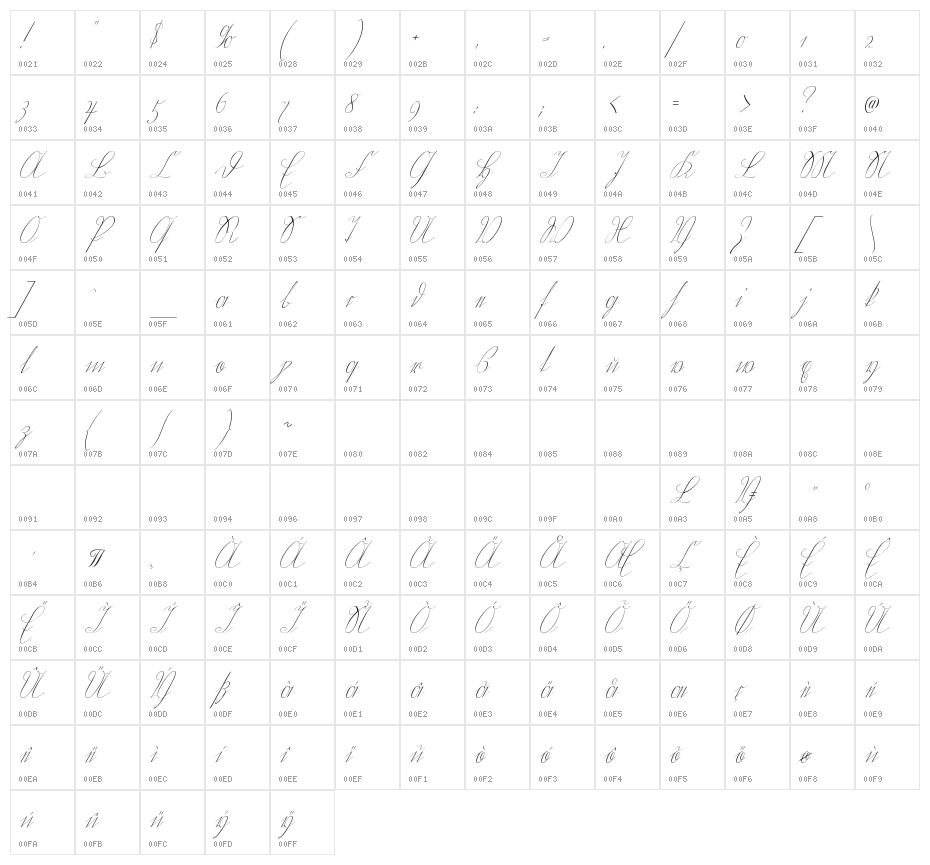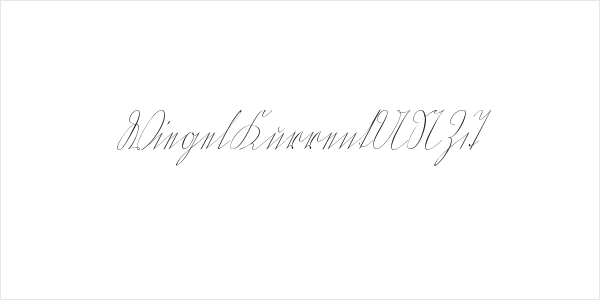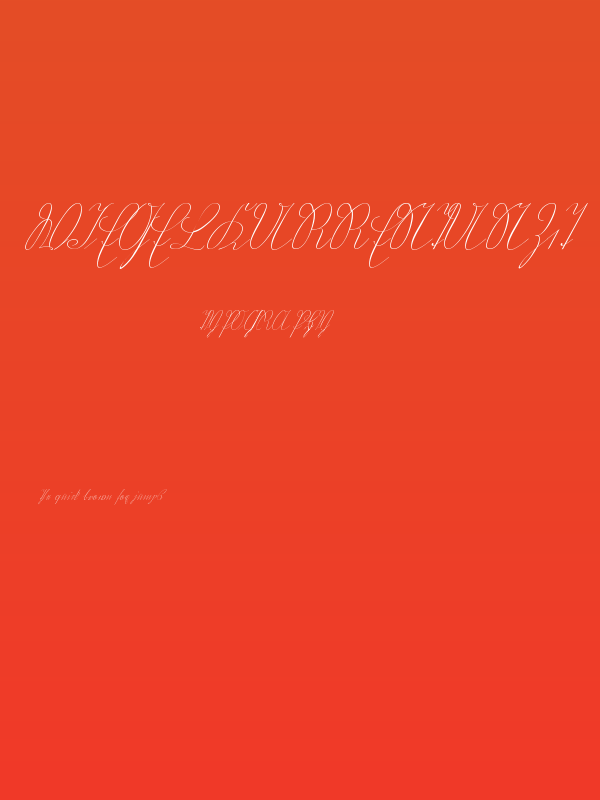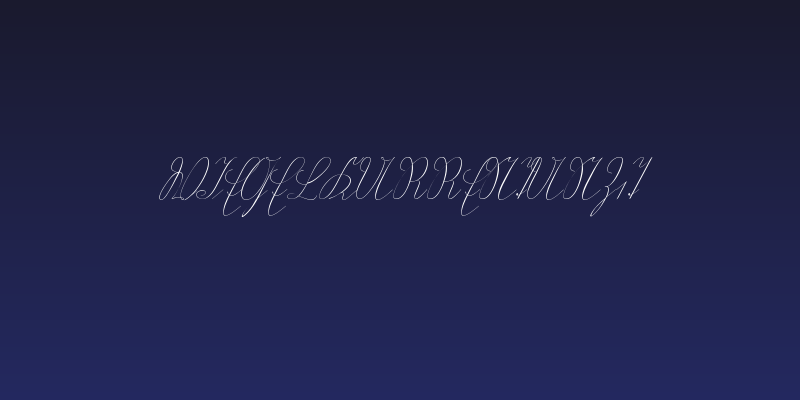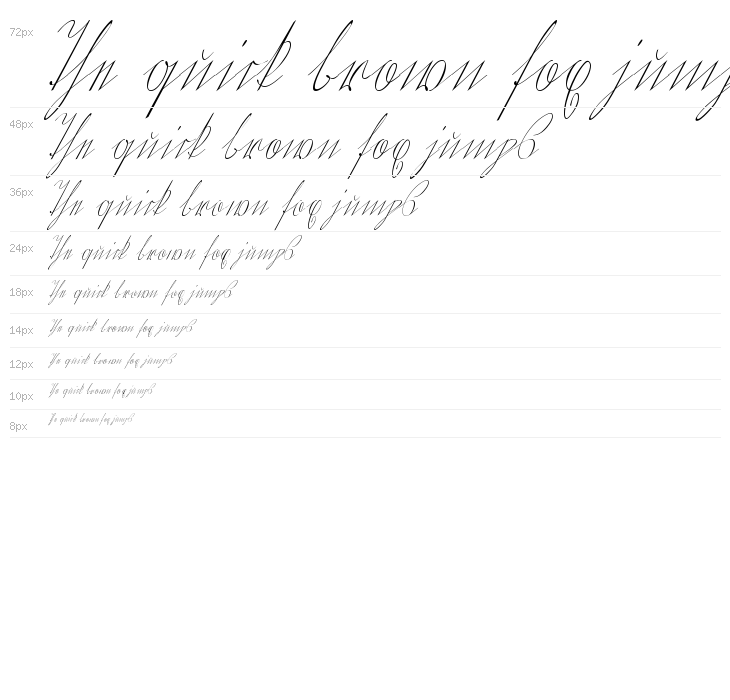
WiegelKurrentUNZ1T Font
WiegelKurrentUNZ1T Description
This font exhibits a classic and elegant script style, characterized by its flowing, cursive letterforms. The strokes are thin and delicate, with a high contrast between thick and thin lines, giving it a refined and sophisticated appearance. The uppercase letters are ornate, with intricate loops and swirls, while the lowercase letters maintain a more straightforward, yet still graceful, design. The numbers and special characters are consistent with the overall style, featuring similar curves and flourishes. This font is reminiscent of traditional calligraphy and is suitable for projects that require a touch of elegance and formality.